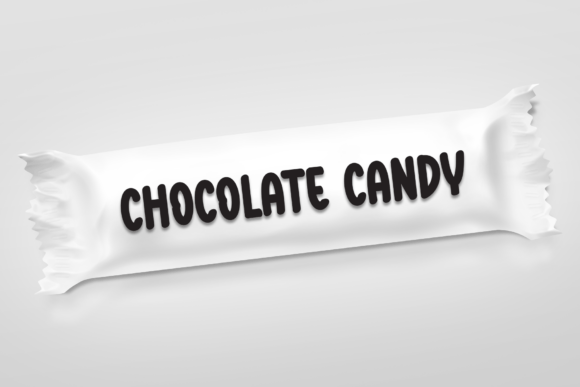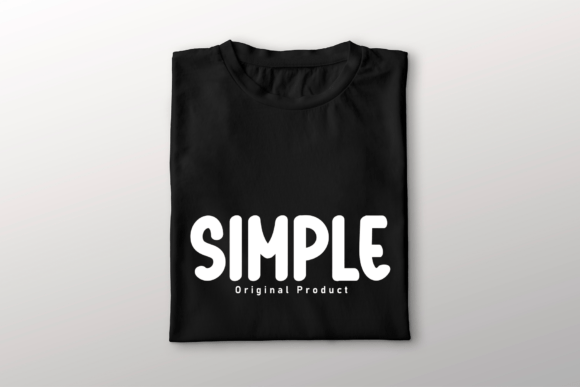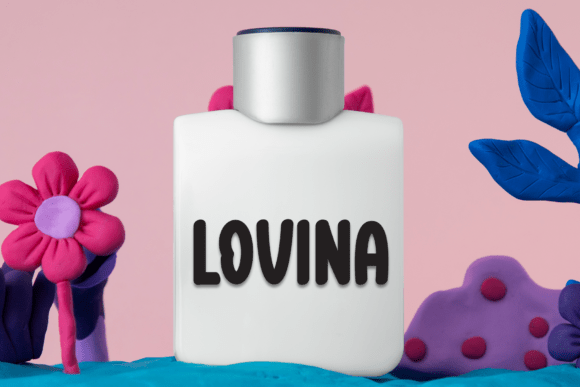
Spring Calendar Font
Spring Calendar is a bold and cheerful handmade font that brings a fun and friendly feel to any project. Its soft rounded edges and clean lettering make it perfect for planners, kids’ designs, seasonal branding, and DIY crafts. It’s a charming choice to brighten up your creative work.